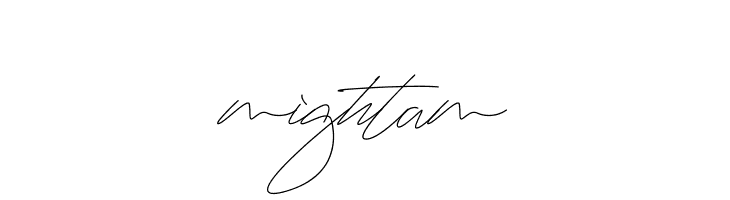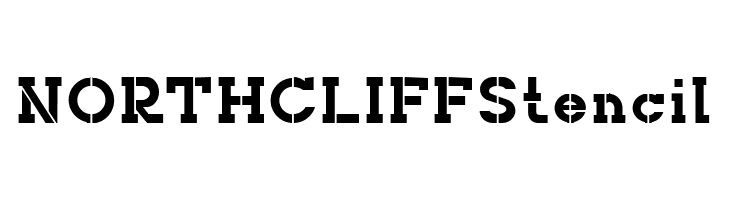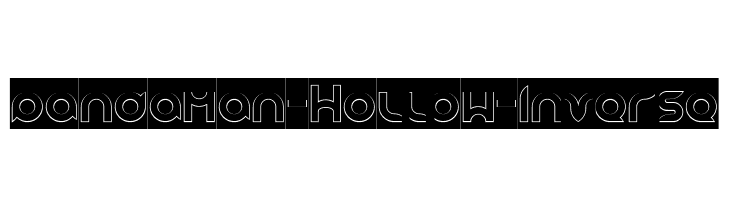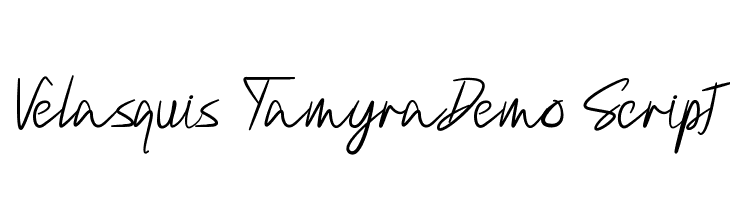
A bold, stencil-style font with geometric cutouts and an industrial feel.
A bold, futuristic font with a distinctive striped pattern.
A geometric, modern font with a clean and structured appearance.
A bold, wavy font with a spooky, hand-drawn appearance.
A modern, geometric hollow font with a futuristic and striking appearance.
A bold, geometric font with a vintage touch, ideal for striking headlines.
A spooky, decorative font with scratchy, uneven strokes.
A flowing, cursive font with elegant curves and a handwritten aesthetic.
An elegant, flowing script font with high contrast and intricate letterforms.
A bold, italic font with a modern, dynamic style and high contrast.